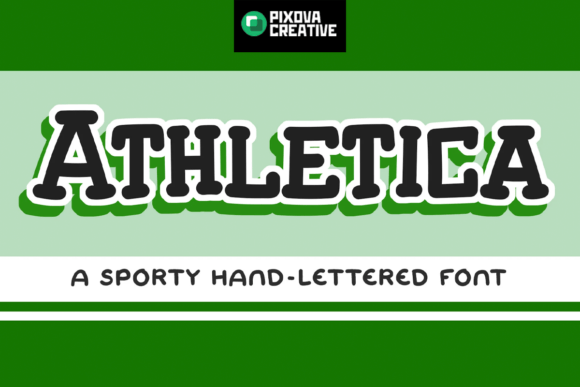
The Designer’s Delight: Exploring the Playful World of Athletica Font
I’ll never forget the time I was working on a project for a sports brand, and I was struggling to find the perfect font to capture their energetic and playful vibe. That’s when I stumbled upon Athletica Font, and it was love at first sight! 💕 With its hand-crafted feel and sporty personality, it was exactly what I needed to bring the brand’s message to life.
What I Love About Athletica Font ✨
• ✅ Playful and energetic feel: Athletica Font is perfect for designs that need a fun and sporty touch.
• ✅ Hand-crafted look: The font’s imperfections and quirks give it a unique, human feel.
• ✅ Versatile: Athletica Font works well for both digital and print designs, from logos and branding to posters and social media graphics.
• ⚠️ Limited formal use: Athletica Font is best suited for informal designs; it may not be the best choice for more formal or professional projects.
• ⚠️ Some letter combinations: As with any font, some letter combinations may not look perfect, but overall, Athletica Font is well-designed and easy to read.
Athletica Font was designed with the goal of creating a playful, sporty font that captures the energy and excitement of athletic events. The designer, inspired by the world of sports and fitness, aimed to create a font that’s both fun and functional. With its hand-crafted feel and unique personality, Athletica Font is perfect for designs that need a sporty, energetic touch.
Q: What type of designs is Athletica Font best suited for?
Athletica Font is perfect for informal designs that need a playful, sporty touch, such as logos, branding, posters, social media graphics, and party invitations.
Q: Is Athletica Font available in different weights or styles?